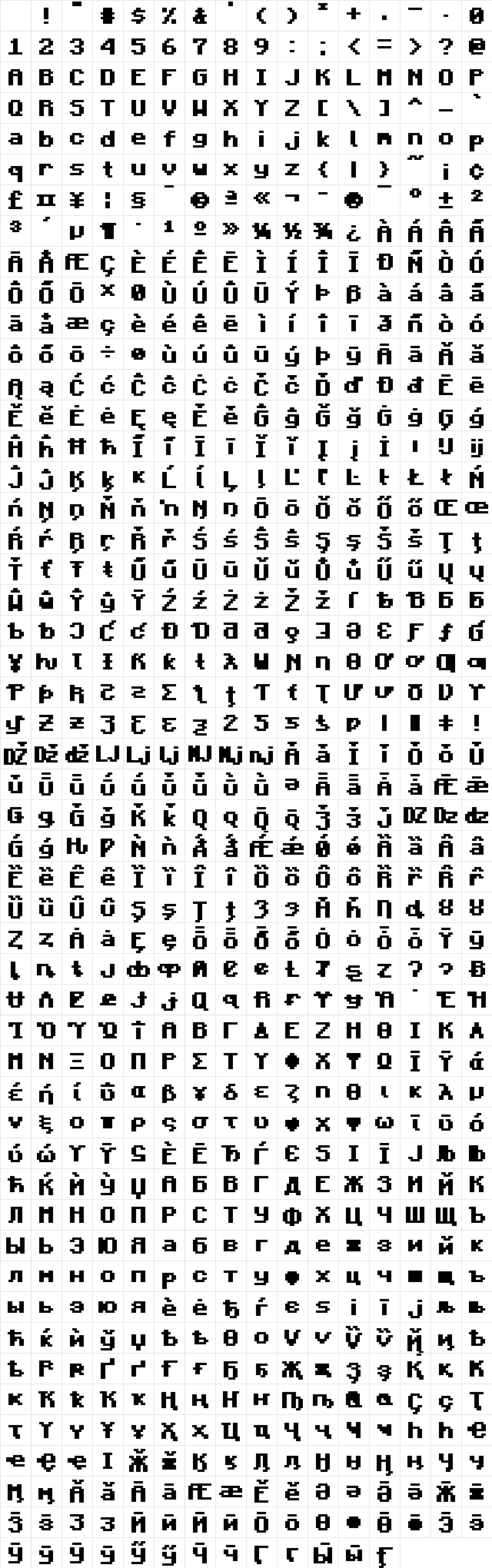
Complete mac's Minecraft Bold glyph index. Displaying only characters natively supported by mac's Minecraft Bold font.
mac's Minecraft is a composed and adaptable typeface that performs quietly and consistently across a wide range of design contexts. Its bold stroke weight gives it real presence on the page.